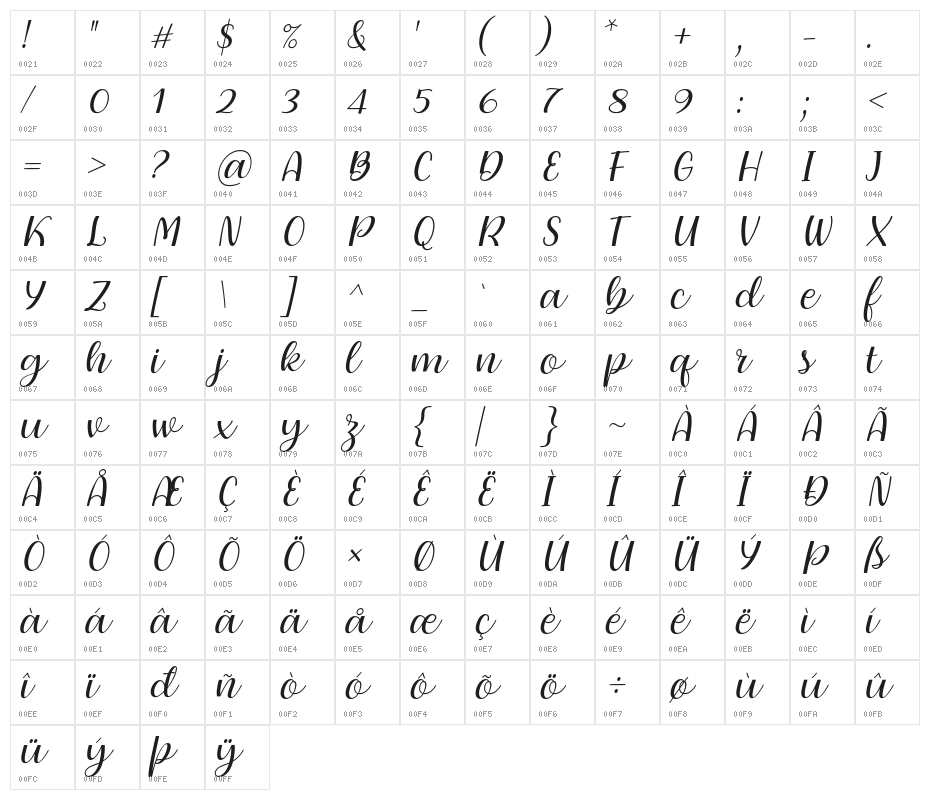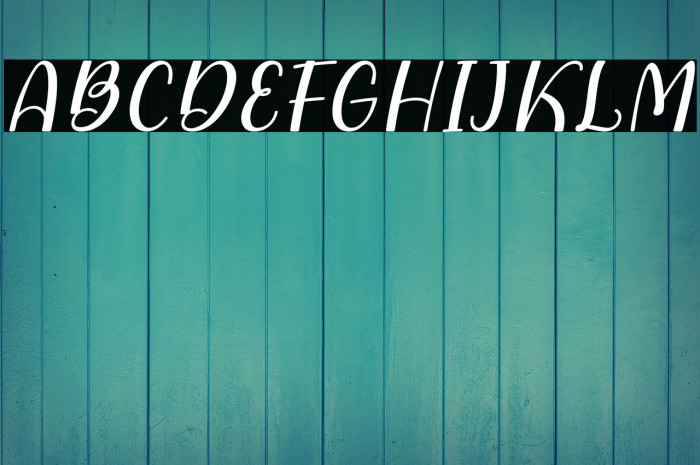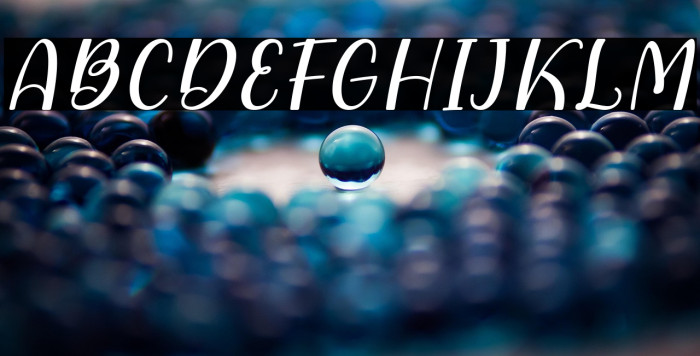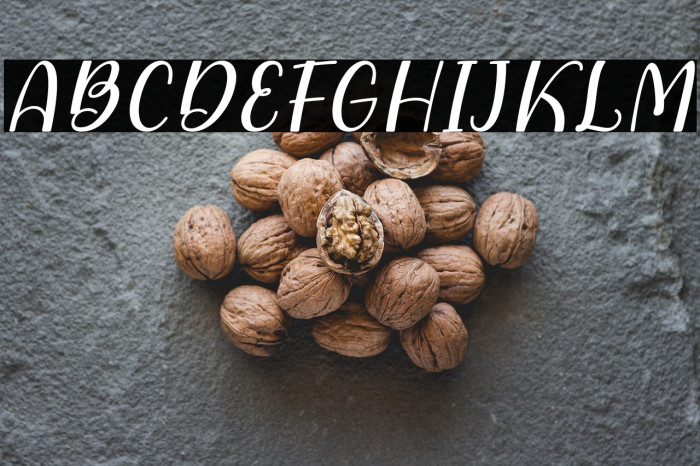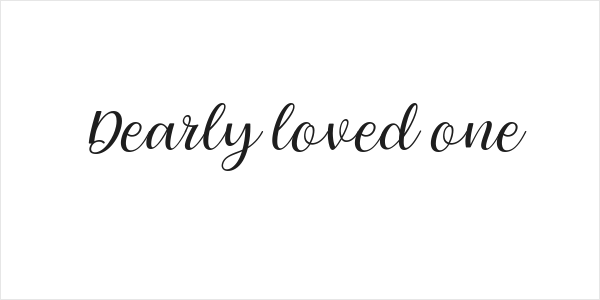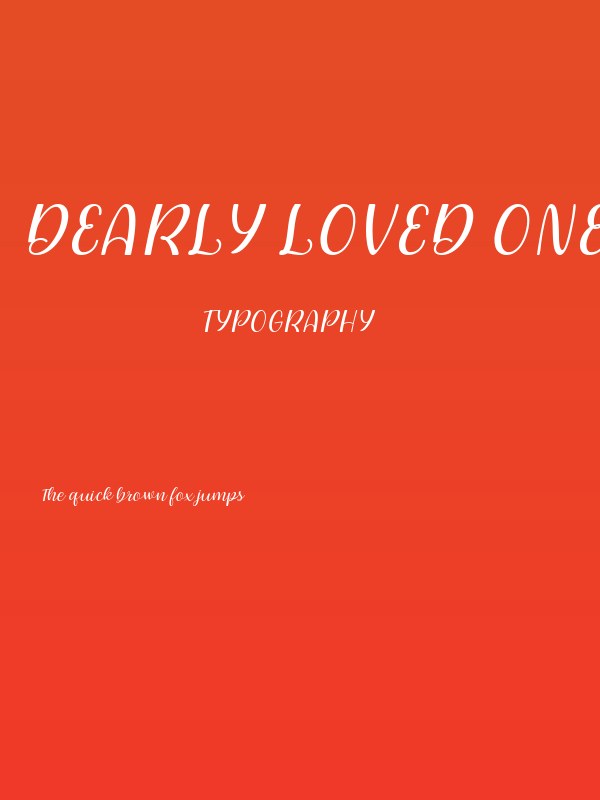
Dearly loved one Font
Dearly loved one Description
This elegant script font features flowing, cursive letterforms that exude a sense of sophistication and grace. The uppercase letters are bold and slightly slanted, with intricate loops and swashes that add a decorative touch. The lowercase letters maintain a consistent slant and are connected, enhancing the fluidity of the text. Numbers and special characters are designed with the same attention to detail, ensuring a cohesive appearance across all elements. The font's overall style is reminiscent of traditional calligraphy, making it suitable for formal invitations, branding, and other projects that require a touch of elegance.